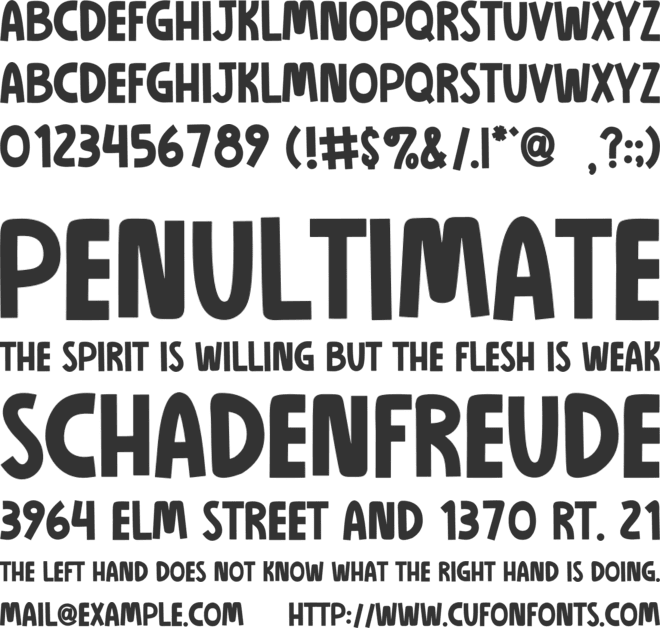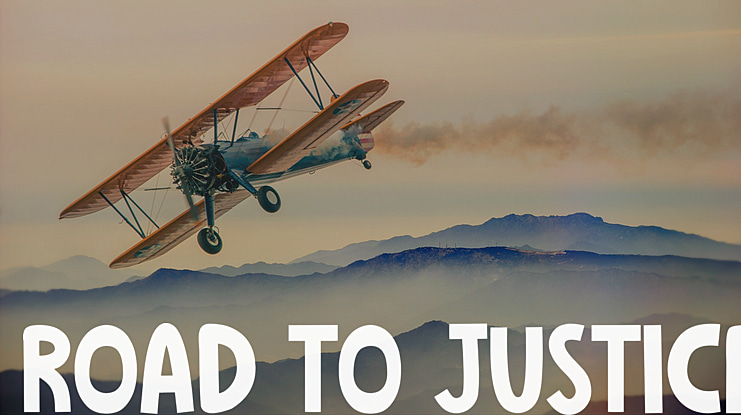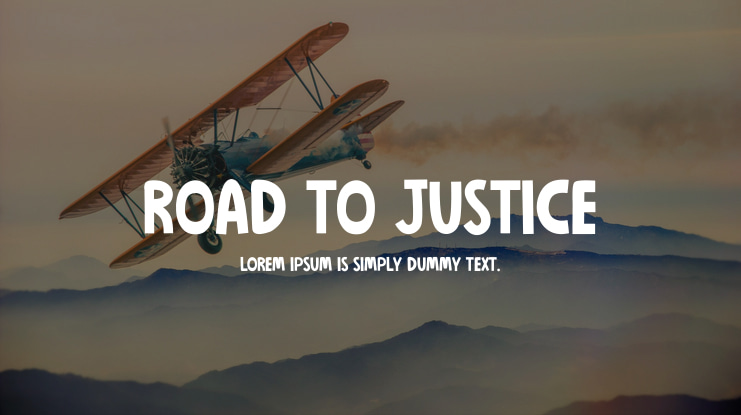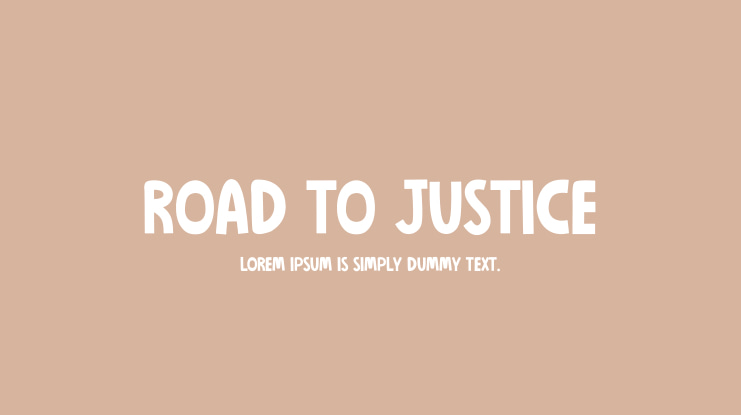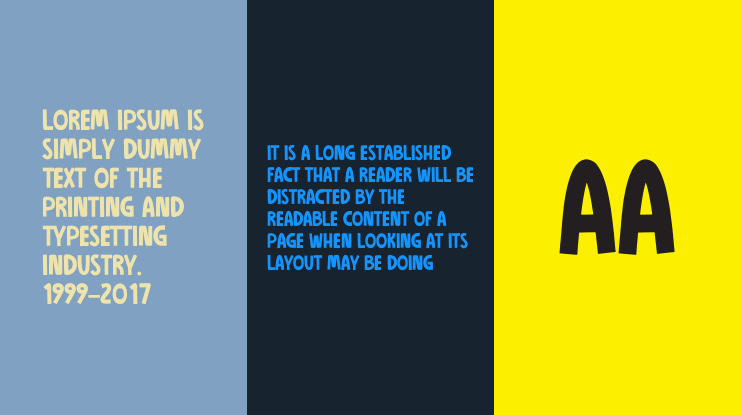
ROAD TO JUSTICE Font
Road To Justice is a fun display typeface. It will lift your design and add a cheeky touch to each of your creations. Use this font for your designs and explore its endless possibilities.